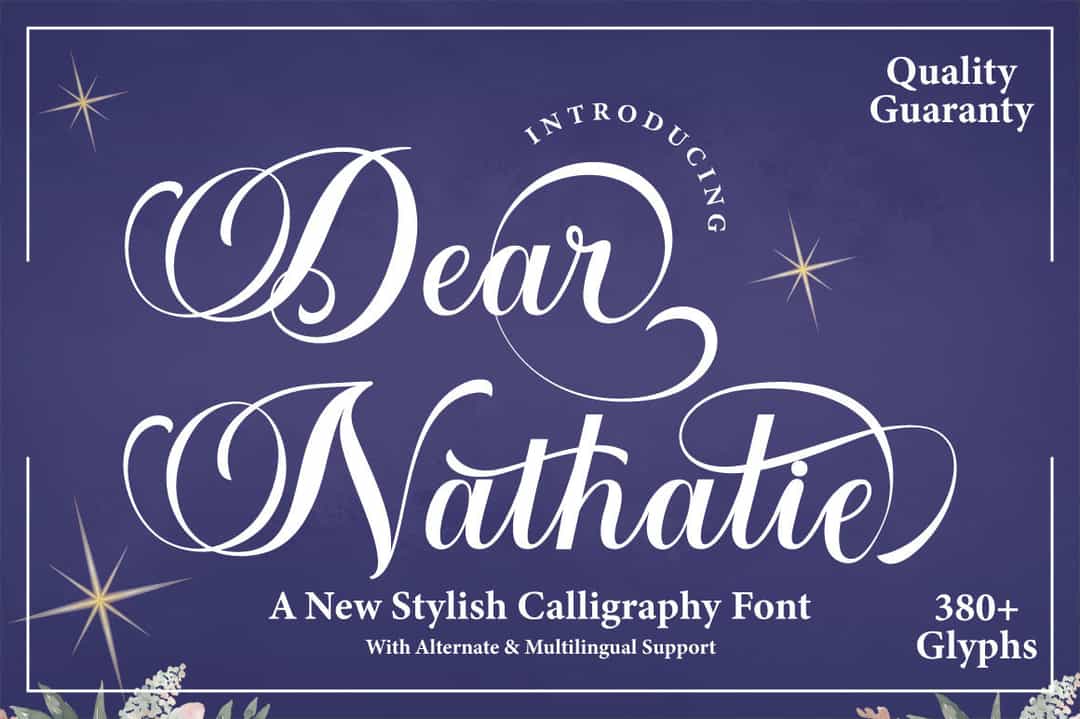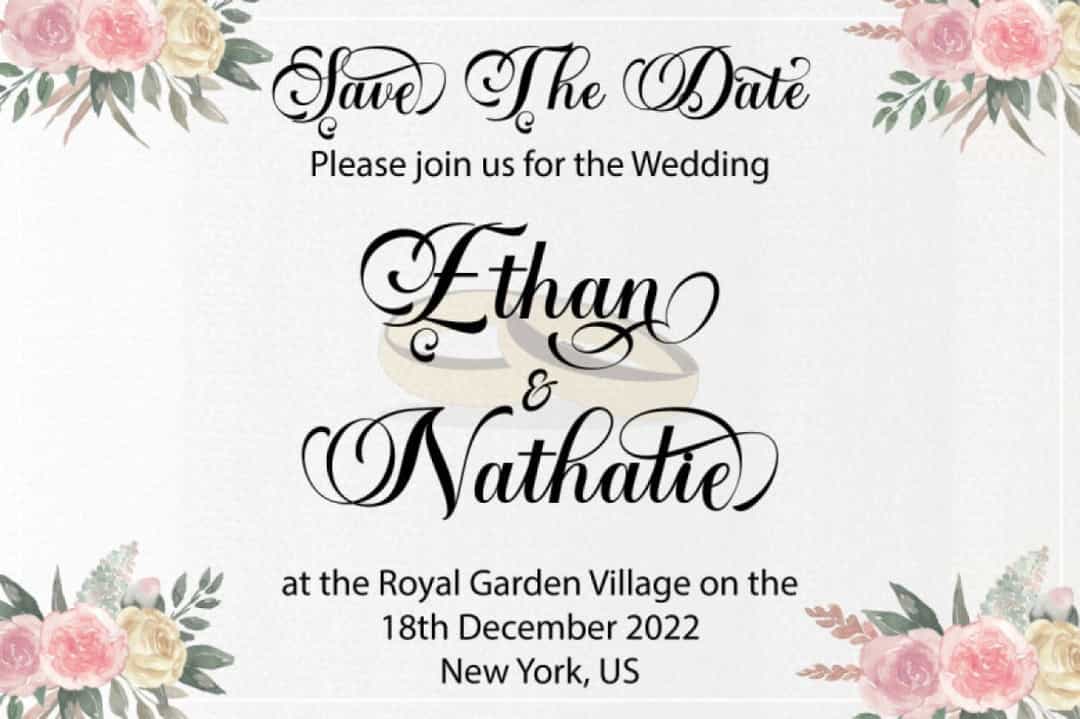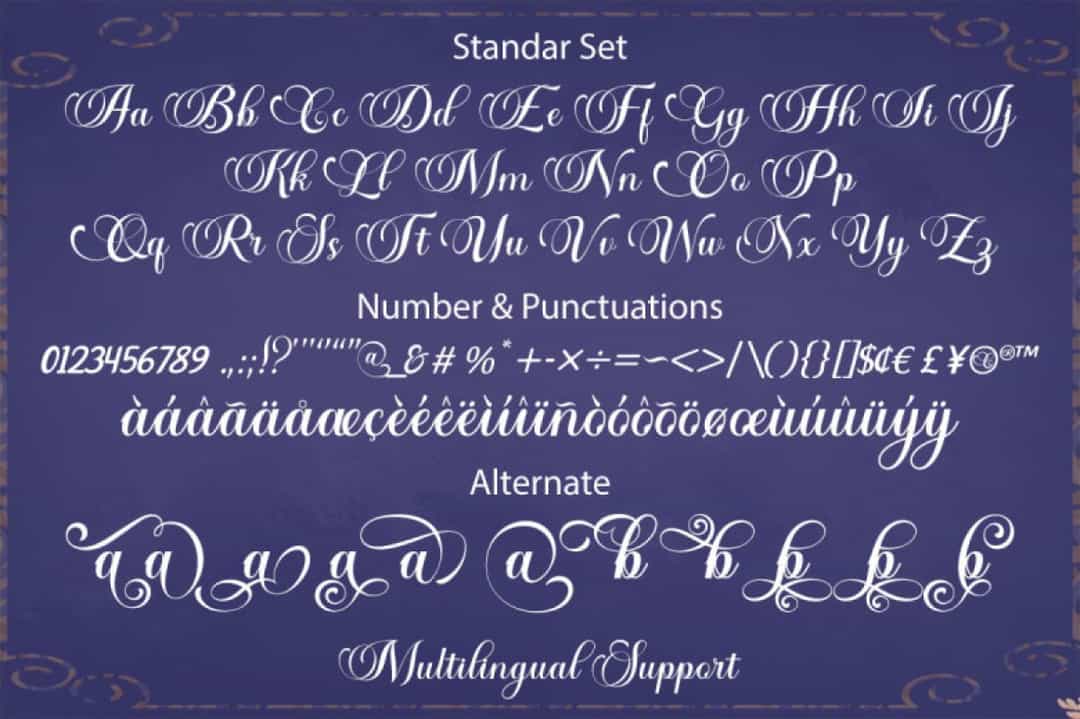
Dear Nathalie is a modern and elegant calligraphy font designed with meticulous care to exude confidence and enthusiasm when used on any design project. This font can be used in all sorts of projects, from wedding invitations and fashion branding, logotypes and more! It will add luxurious sparkle to any design!